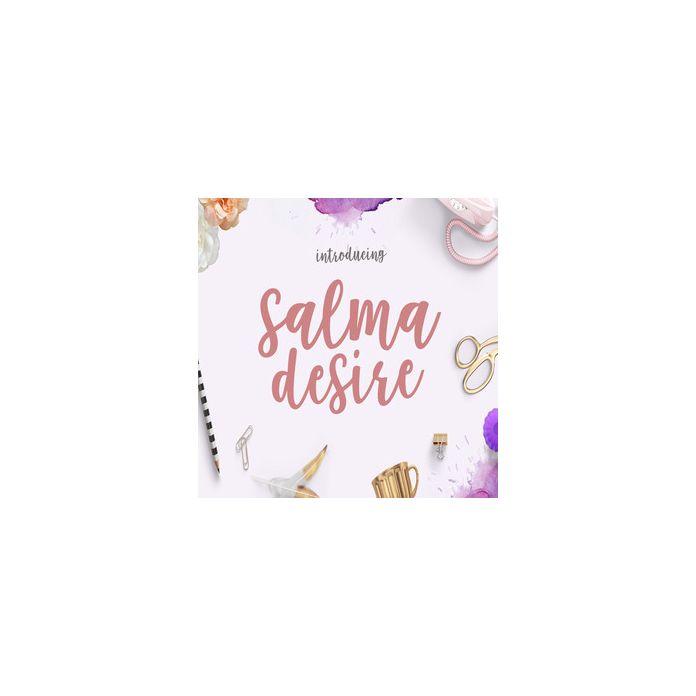
Salma Script has modern calligraphic strokes, which combine classical style with modern style calligraphy.
It contains a total of 154 characters including various punctuation, numbers, and multilingual support.